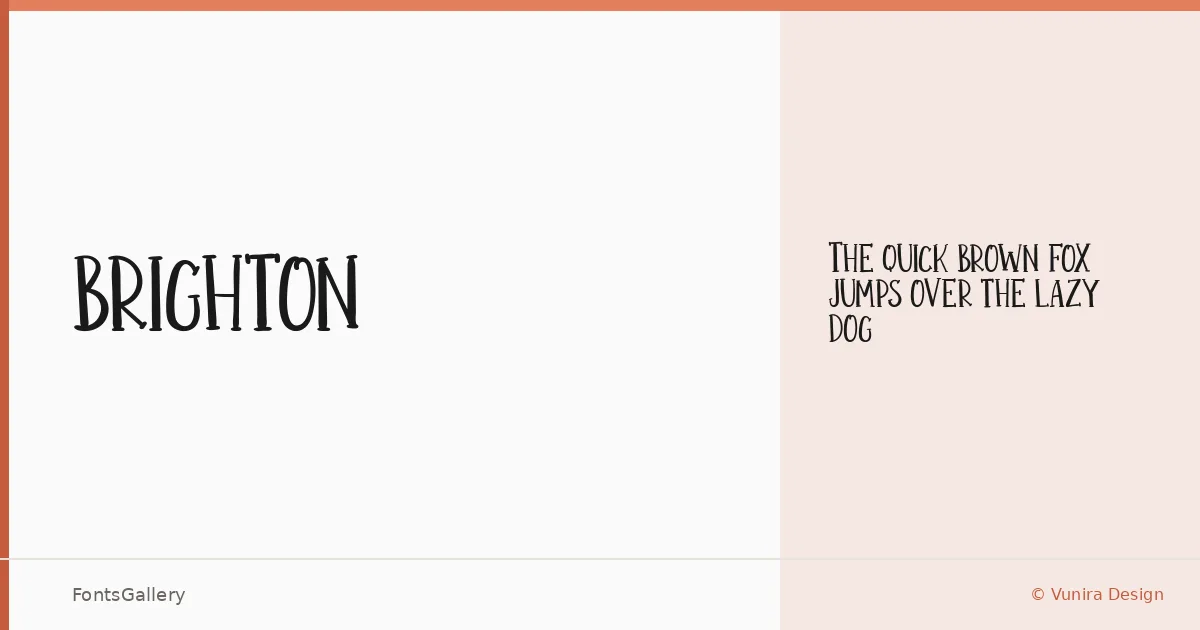
About BRIGHTON Font
There is a confident weight to these letterforms — the kind of deliberate stroke contrast and character structure that recalls hand-lettered signage and vintage press work. Created by Vunira Design, this single-cut display face leans hard into a rustic, classic sensibility without feeling like a period piece.
Bold and unhurried, the forms carry a vintage warmth that suits headline work where presence matters more than subtlety. The family ships as a single Regular weight in both TTF and OTF formats, so what you are working with is a focused, purpose-built display cut rather than a range of weights. That specificity is a strength — the design is not hedging toward neutrality, and the rustic character comes through cleanly at large sizes.
This face earns its keep in branding, logo lockups, posters, and T-shirt design — anywhere the goal is immediate recognition and a classic, slightly worn authority. At text sizes it will struggle, but scaled up for a headline it reads with real conviction. For supporting type, the clean geometry of Helvetica or Aileron provides useful contrast, while Aranea, Aresink, or Alexandria can complement it within more styled, editorial layouts.